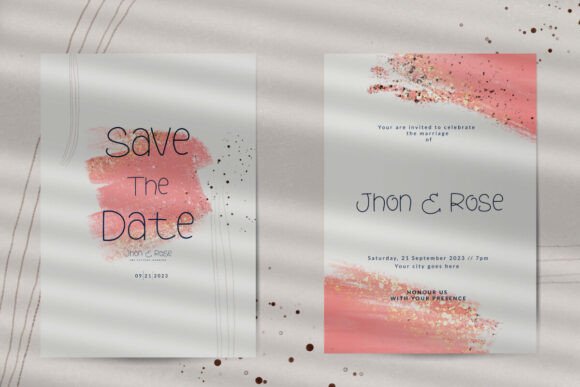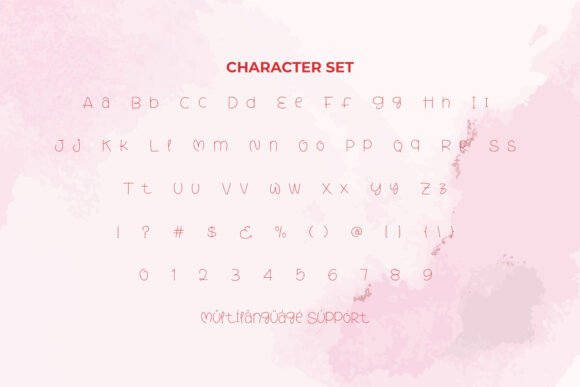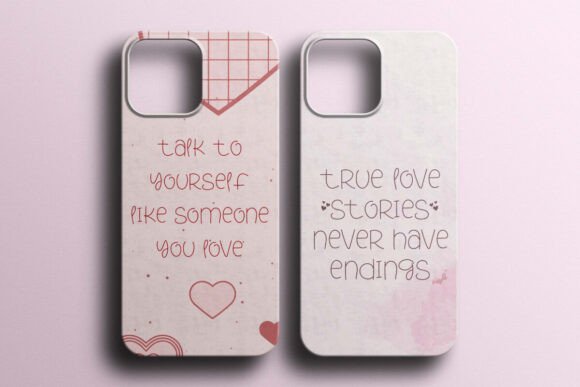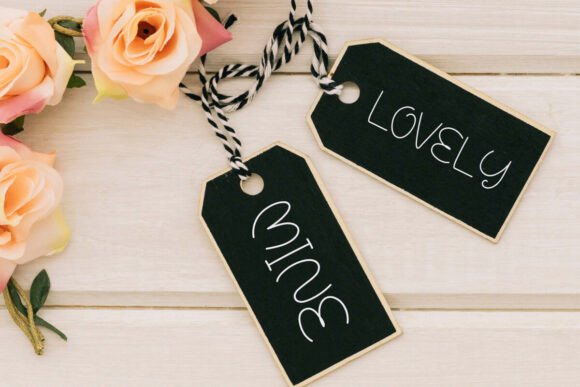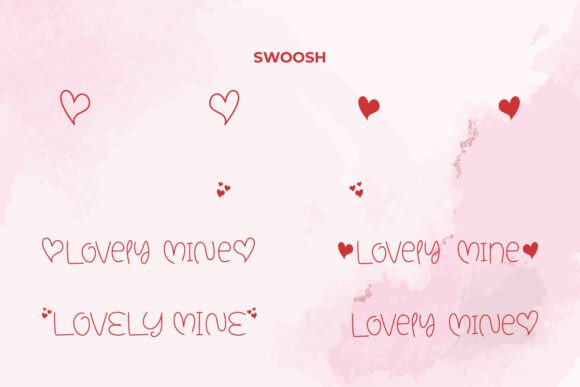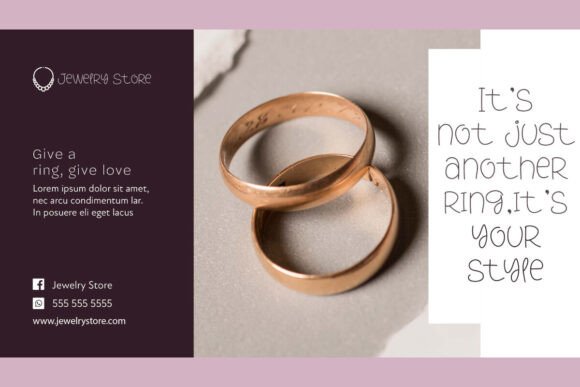
Introduction to Lovely Mine Font
Have you ever stumbled upon a font that captures the essence of your creative vision and brings your project to life? For designers, finding the perfect font can be a game-changer, and that’s exactly what the Lovely Mine Font offers. This charming, hand-drawn font is a must-have for any design resource, and its unique characteristics make it a standout choice for creative projects.
With its delicate, monoline style and subtle hearts, the Lovely Mine Font exudes a sense of romance and whimsy that’s perfect for a wide range of industries, from boutique and café to photography and publishing. Whether you’re working on a free download or a high-quality commercial project, this font is sure to add a touch of elegance and sophistication to your design.
- Unique, hand-drawn style with intricate details, making it perfect for adding a personal touch to designs.
Honest Review: Lovely Mine Font
I recently stumbled upon the Lovely Mine Font, and I must say it’s been a great addition to my design resource collection. This font is perfect for any creative project that requires a unique, playful touch.
- The Lovely Mine Font offers a high-quality design that’s perfect for digital and print projects.
- The font’s quirky, hand-drawn style adds a touch of personality to any creative project.
- The font may not be suitable for projects that require a more formal or professional tone.
- The font’s uniqueness may not be suitable for projects where consistency is key.
Overall, the Lovely Mine Font is a great addition to any designer’s toolkit. Its unique style and high-quality design make it perfect for creative projects that require a playful touch. While it may not be suitable for every project, it’s definitely worth checking out for designers looking to add some personality to their work.
How to Use Lovely Mine Font
The Lovely Mine Font is a high-quality design resource ideal for creative projects that require a unique touch. With its transparent background, this font can be easily integrated into various design platforms.
Tips for Getting the Most Out of Lovely Mine Font
To get the most out of the Lovely Mine Font, use it in combination with other design elements to create a cohesive look. Experiment with different font sizes, colors, and arrangements to achieve the desired effect.
The Lovely Mine Font is suitable for various design projects, including:
- Graphic designs for social media and websites
- Print materials, such as business cards and brochures
Does the Lovely Mine Font have a transparent background?
Yes, the Lovely Mine Font has a transparent background, making it ideal for use in design projects that require a high level of customization and flexibility. This feature allows you to easily overlay the font on top of images or other design elements, creating a unique and visually appealing design resource.